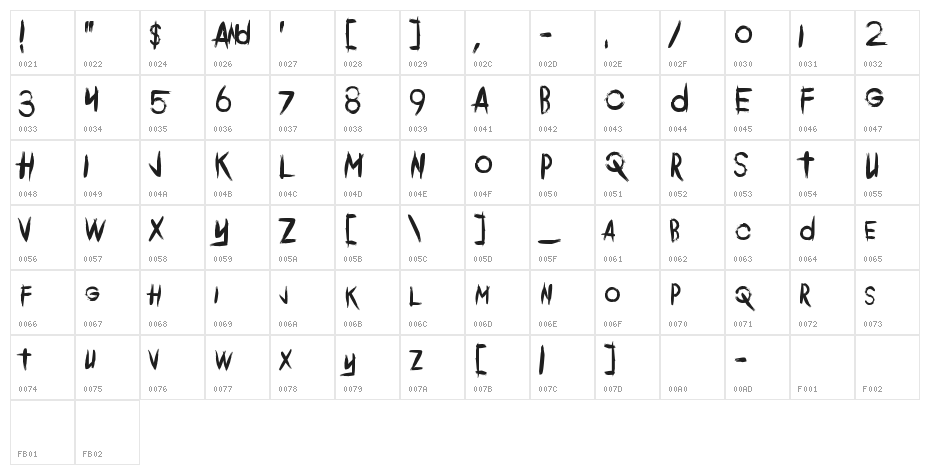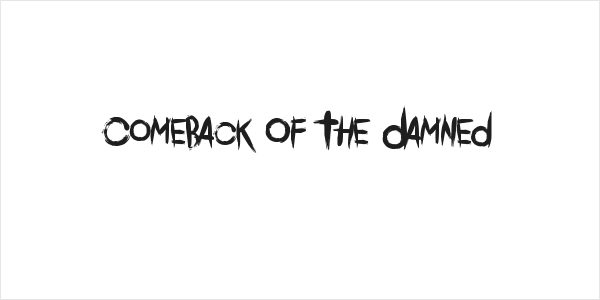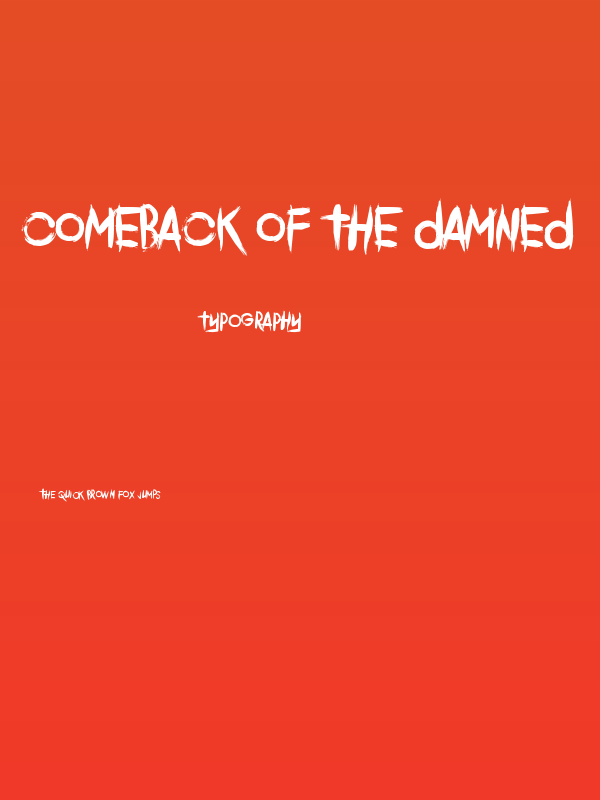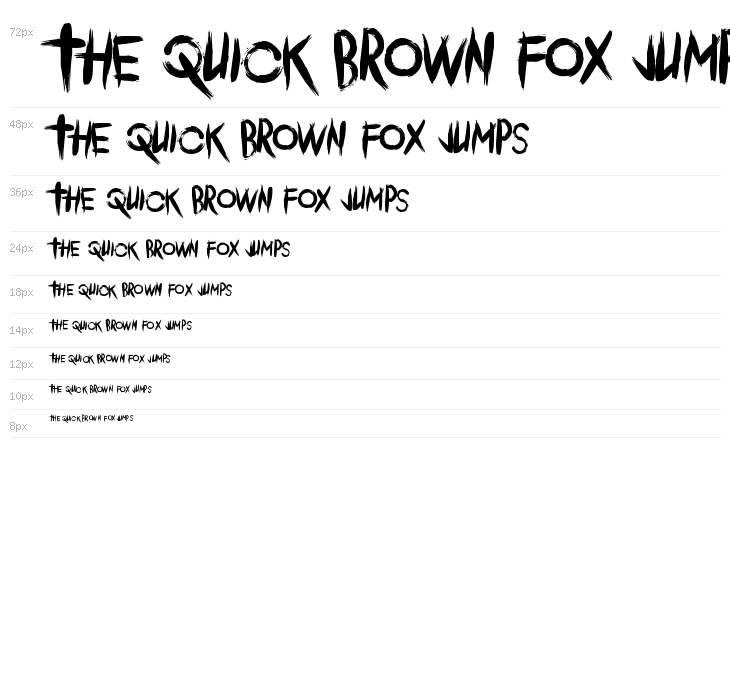
Comeback Of The Damned Font
Comeback Of The Damned Description
This font exudes a raw, energetic vibe with its brush-like strokes and uneven edges. Each character appears as if it has been painted with a thick brush, giving it a dynamic and slightly chaotic appearance. The uppercase and lowercase letters maintain a consistent style, with sharp angles and a sense of movement. Numbers and special characters follow the same aesthetic, ensuring a cohesive look across all glyphs. The font's rugged texture and bold presence make it ideal for projects that require a strong, impactful visual statement.
| Proposed Projects | Ideal for music album covers, horror movie posters, edgy branding, and street art-inspired designs. |